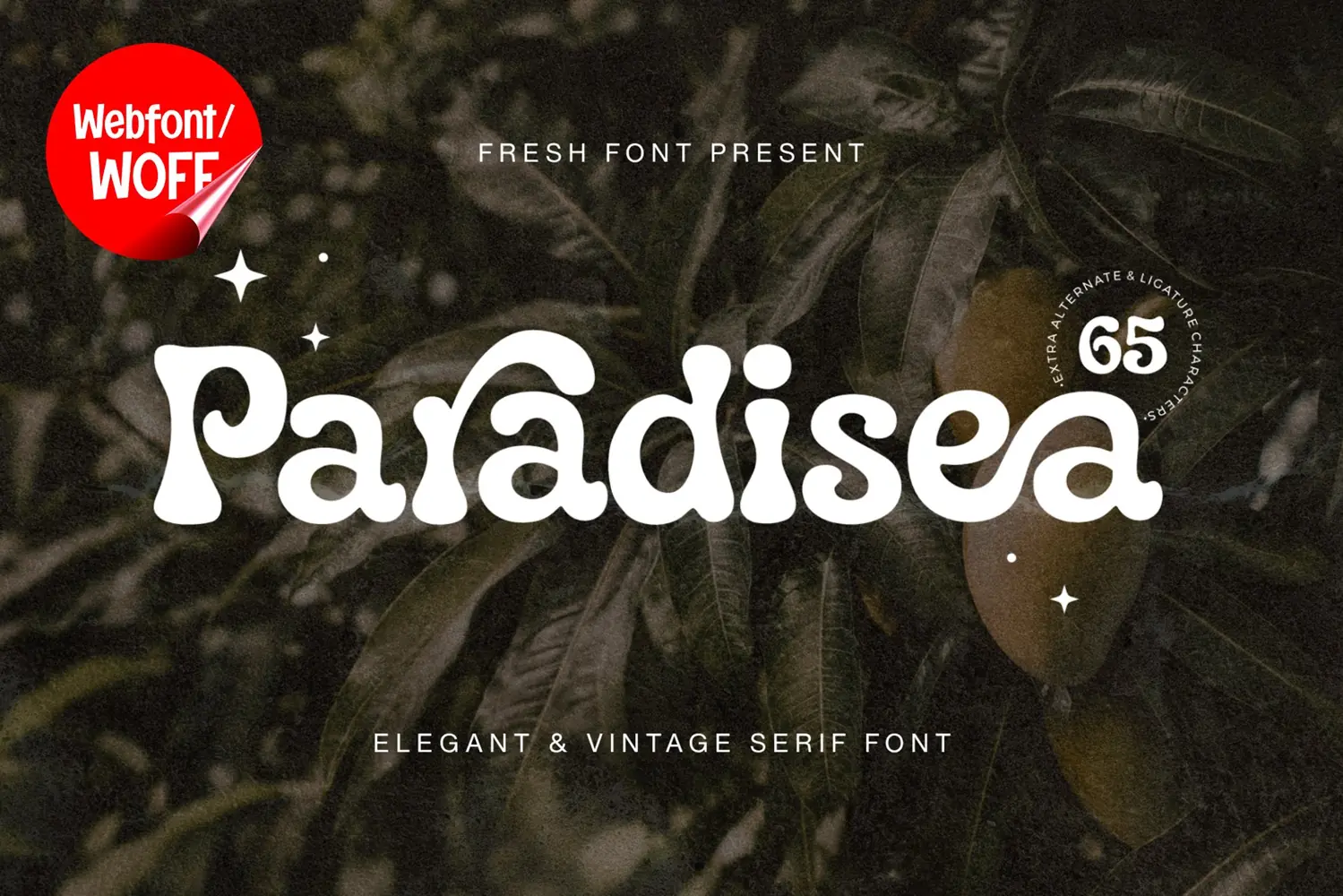
Paradisea Webfont Elegant Vintage Serif Font | Stylish Web
Bring the elegant and nostalgic character of Paradisea to your digital projects with this beautiful webfont edition. Paradisea is an expressive vintage serif typeface featuring bold, organic letterforms with soft curves and a distinctive retro personality. Its unique appearance makes it an excellent choice for websites, online stores, digital branding, portfolios, blogs, landing pages, and other web-based creative projects.
Designed to balance vintage elegance with modern creativity, Paradisea can instantly give your website typography a more memorable and sophisticated appearance. The distinctive letter shapes are especially effective for headlines, hero sections, website titles, promotional banners, brand names, and other prominent display text.
Paradisea also features extra alternate and ligature characters, allowing you to create more personalized and decorative typographic treatments when supported by your webfont implementation. These additional characters make the typeface versatile for creating unique visual identities and expressive digital compositions.
Use Paradisea for creative websites, fashion brands, boutique stores, lifestyle blogs, portfolio websites, online campaigns, digital magazines, beauty brands, vintage-inspired businesses, and modern editorial layouts.
Create a distinctive digital identity with Paradisea and give your web typography an elegant, vintage-inspired personality.